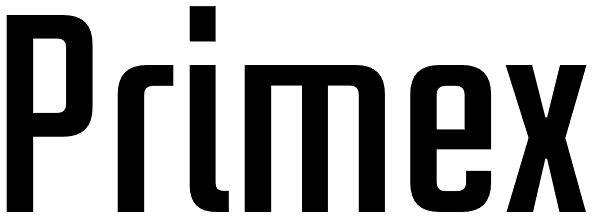
Primex
One of the Modulus series of interchangeable type styles built around a common framework. A general purpose design with squared forms and a simplified finish, Primex delivers excellent clarity on-screen and is doubly effective in print. The key...